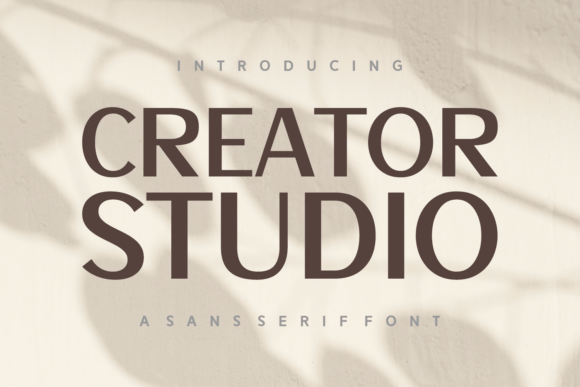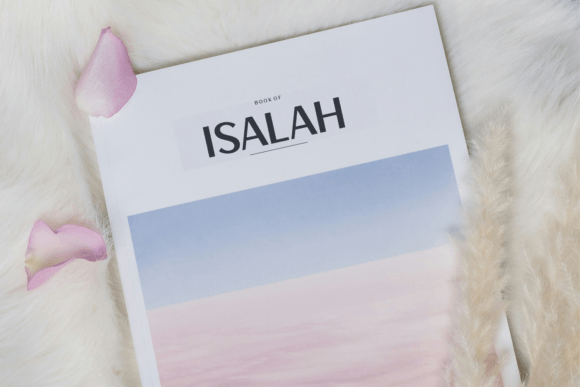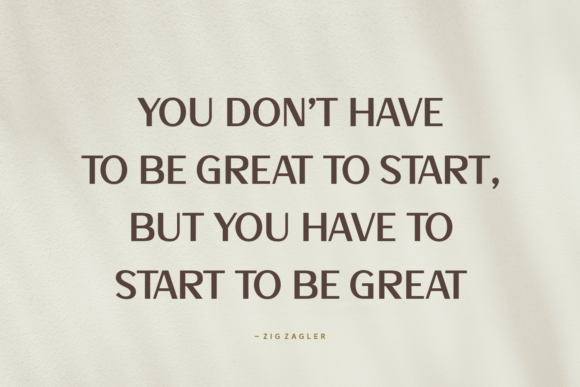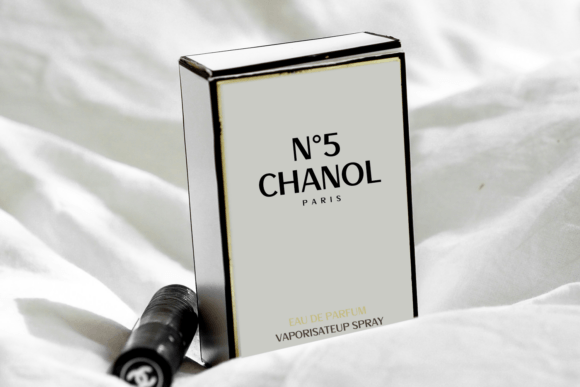
The Perfect Canvas for Your Creativity
Have you ever stared at a blank page, eager to bring your idea to life, only to be overwhelmed by the endless possibilities? It’s a moment we’ve all experienced as creatives, and it’s precisely this moment that we need the right tools to spark our imagination.
That’s where the Creator Studio Font comes in – a modern sans-serif font designed to empower your creativity. With its clean lines, balanced proportions, and contemporary feel, this font is perfect for branding, web design, and creative projects. Its minimalist aesthetic ensures readability and style across various applications and platforms, making it a valuable asset for designers.
Key Features of Creator Studio Font
- Unique Characteristics: The font features a modern and sleek design, with clean lines and a minimalist aesthetic, making it perfect for creating a professional and sophisticated look.
- Character Set: The font includes a comprehensive character set, including Latin, Cyrillic, and Greek alphabets, as well as a range of punctuation and special characters.
Designer Review: Creator Studio Font
As a designer, I’ve had the chance to work with the Creator Studio Font, and here’s my honest take on it.
- Friendly and approachable feel: The Creator Studio Font has a friendly and approachable feel to it, making it perfect for content and social media platforms.
- Legibility: It’s highly legible, even at smaller font sizes, which is a must-have for digital content.
- Neutral and clean design: The font’s neutral and clean design makes it a great choice for creating visually appealing content without drawing too much attention away from the message.
- Lack of versatility: The Creator Studio Font feels a bit one-dimensional, and it may not be the best choice for projects that require a lot of sophistication or elegance.
- No distinct personality: While the font is friendly and approachable, it doesn’t have a distinct personality, which may make it harder to stand out in a crowded design space.
Overall, the Creator Studio Font is a solid choice for content and social media platforms, but it may not be the best fit for more complex or high-end projects.
Tips for Getting the Most Out of Creator Studio Font
Use bold and italic font styles to emphasize important information.
Use font sizes to create visual hierarchy and draw attention to key points.
Experiment with different font combinations to create a unique and engaging design.
Creator Studio Font is suitable for a variety of applications, including:
Social media graphics
Marketing materials
Presentation slides
Blog posts and articles
Alternatives to Creator Studio Font for Designers
Open Sans is a clean and modern sans-serif font designed by Steve Matteson. It’s ideal for digital interfaces, such as websites and mobile apps, due to its readability and versatility. Open Sans is a more neutral font compared to Creator Studio Font, making it suitable for a broader range of applications.
Comparison to Creator Studio Font: Open Sans is more neutral and less dramatic, making it a better choice for general-purpose design projects.
Lato is a sans-serif font designed by Łukasz Dziedzic. It’s a modern and elegant font that works well for digital interfaces, branding, and advertising. Lato is more delicate and refined compared to Creator Studio Font, making it suitable for projects that require a touch of sophistication.